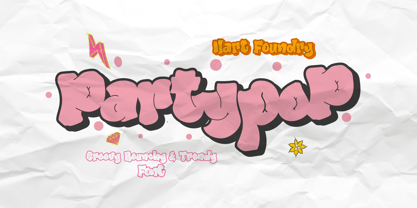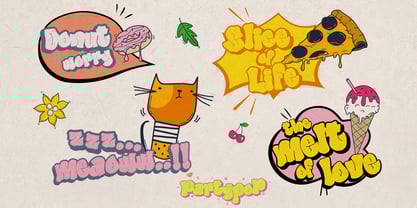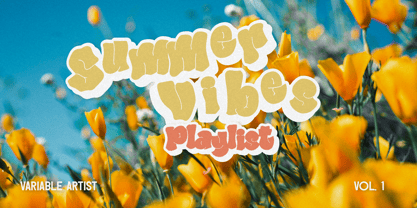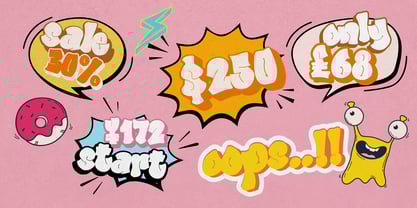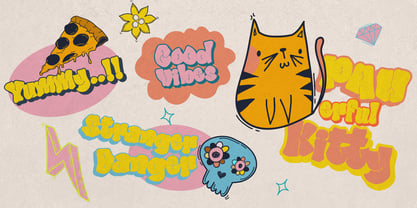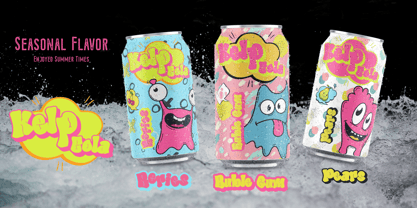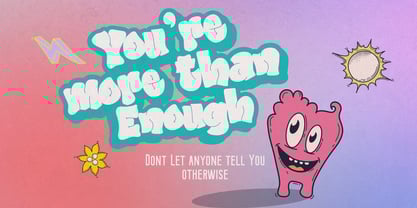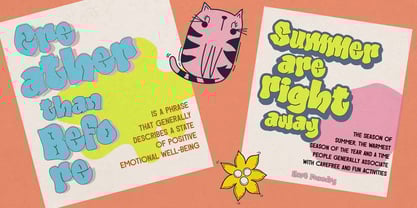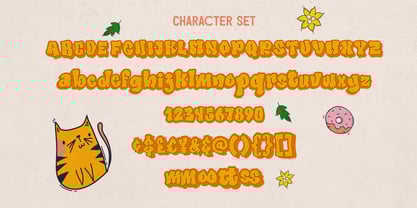
Party Pop
by Hart Foundry
The Party Pop Font Family was designed by Muhammad Ardiansyah and published by Hart Foundry. Party Pop contains 1 styles. More about this family
Party Pop This is a hand-lettered font I made for optimum kookiness. It's oddly bubbly and woefully wonderful. Looks great for logos, quotes, art, signs, titles, and a handmade touch. Enjoy!
What's in the font? Uppercase and lowercase Letters Aa-Zz! Numbers! Symbols! Punctuation! (see slides)
Designers: Muhammad Ardiansyah
Foundry: Hart Foundry